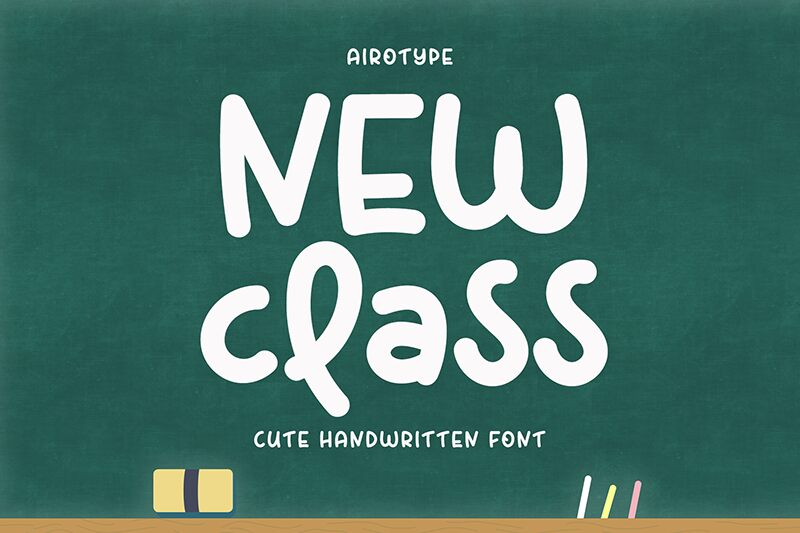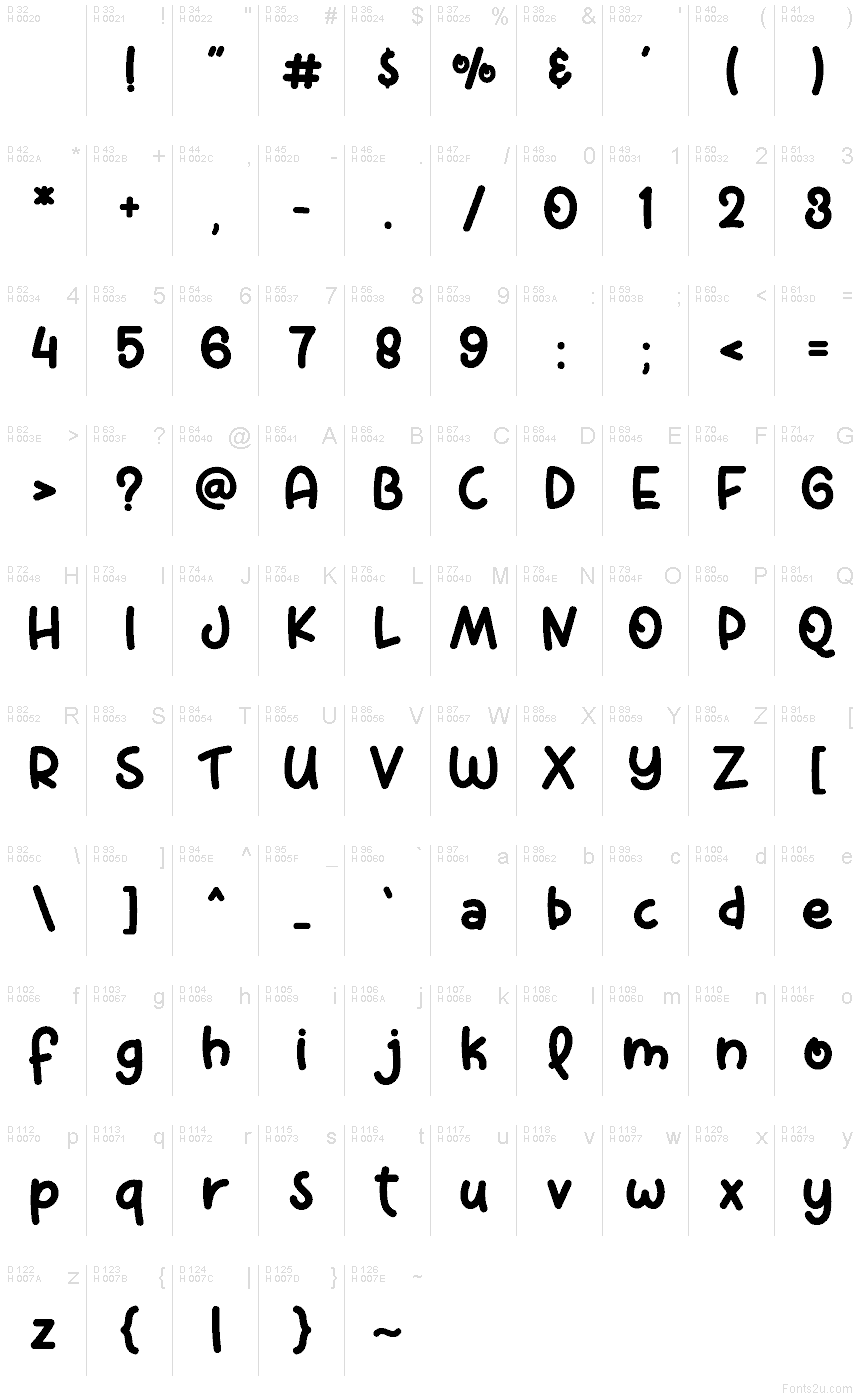
New Class font by Airotype is a free handwritten typeface with a playful, classroom energy baked into every rounded curve. Its letters feel like they’ve been drawn confidently with a thick marker-smooth, bouncy, and friendly, without slipping into messy or chaotic. The roomy spacing and soft, pillowy strokes make words feel approachable and easy to read, even at smaller sizes.
Using New Class, you can give instant charm to school posters, kids’ book covers, learning apps, worksheets, birthday invitations, and crafty branding for toys or stationery. This free font shines when you lean into its casual rhythm and keep text short and punchy, like headlines or section titles. Try pairing New Class with a clean sans serif for body copy, letting this handwritten star handle the fun, attention-grabbing parts of your layout.